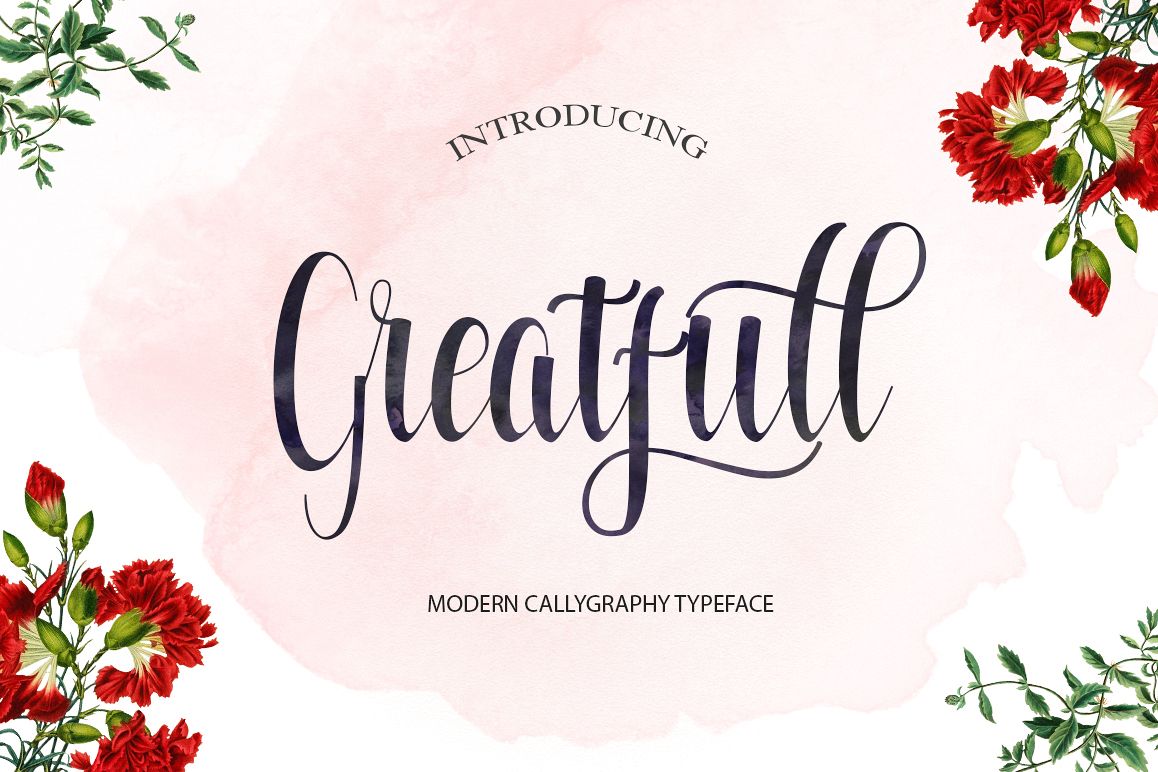
Greatfull
Greatfull Modern Calligraphy. This font was designed by handwriting, and it has a modern and unique forms of calligraphy, the writing style is very natural.
The Features of this fonts is;
Standart ligatures
Stylistic Alternates
Contextual Alternates
Stylistic sets